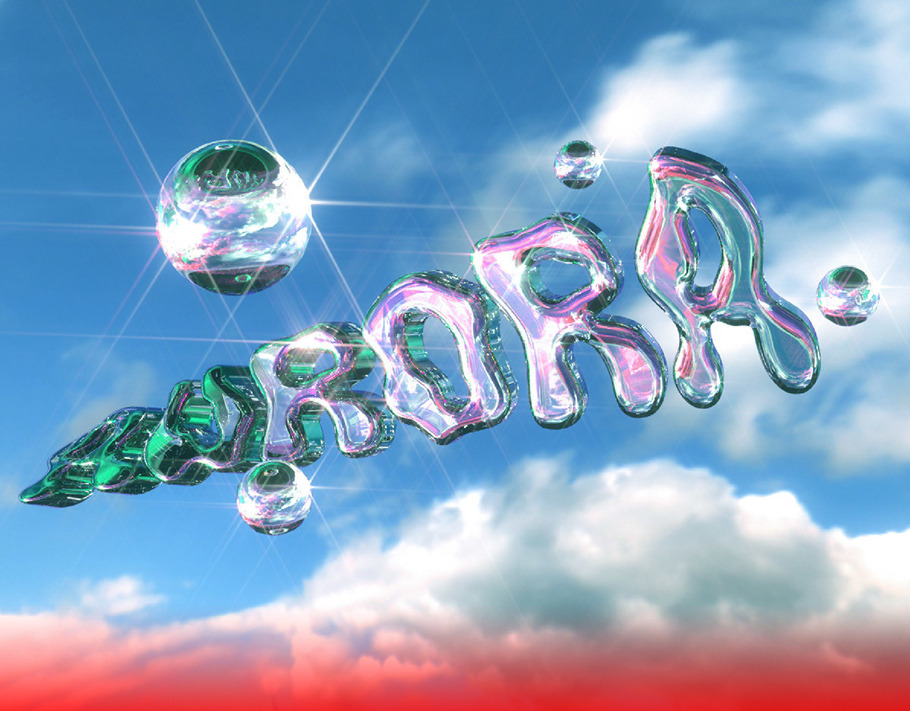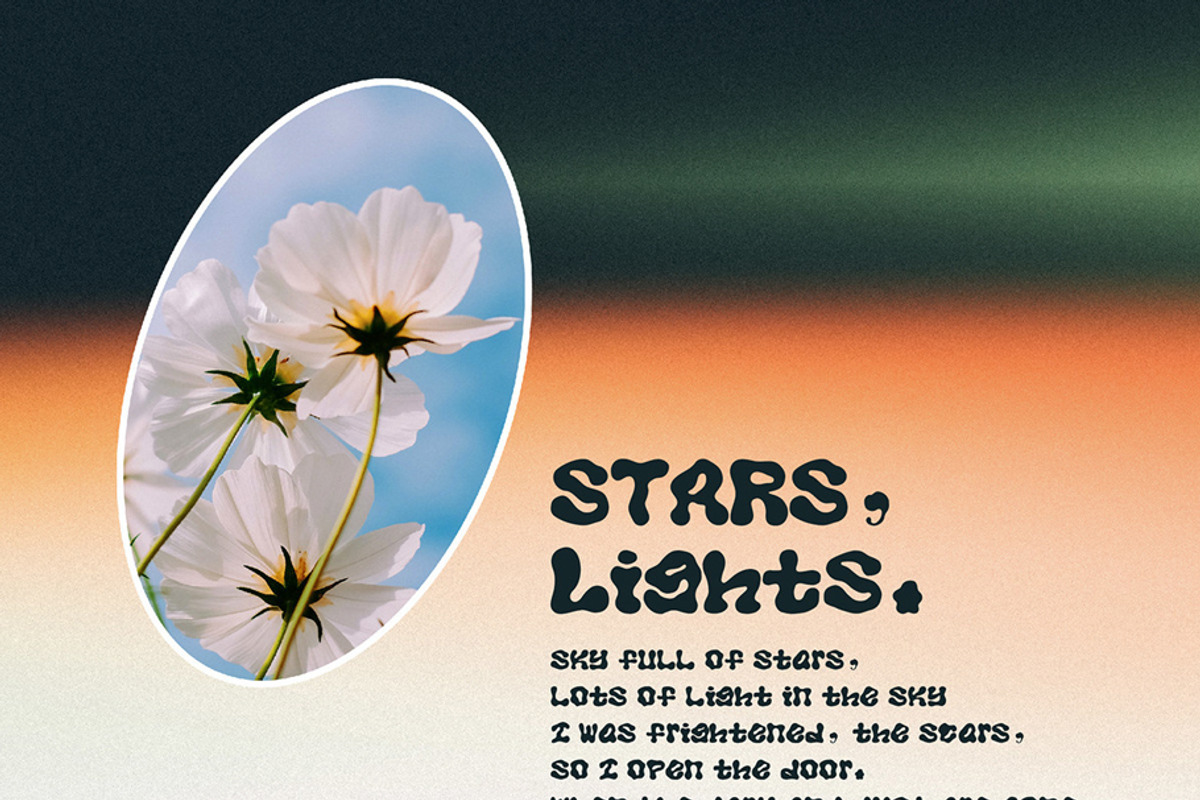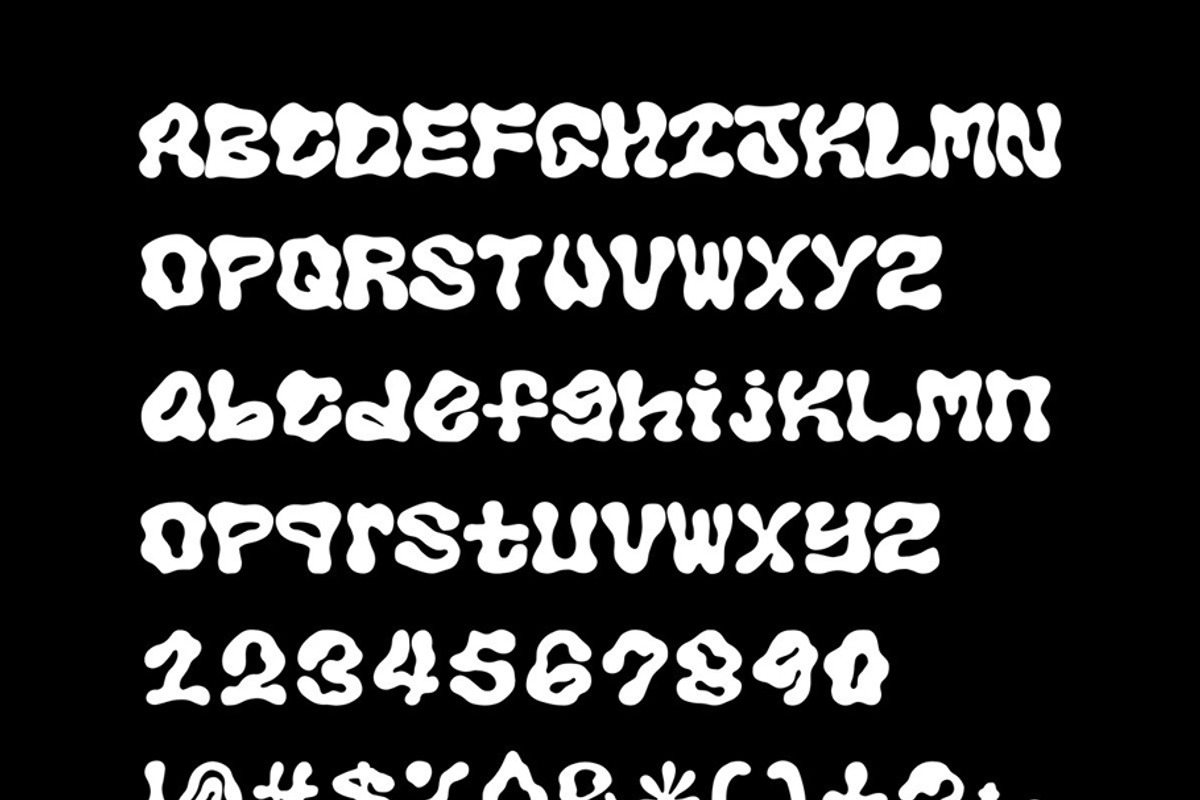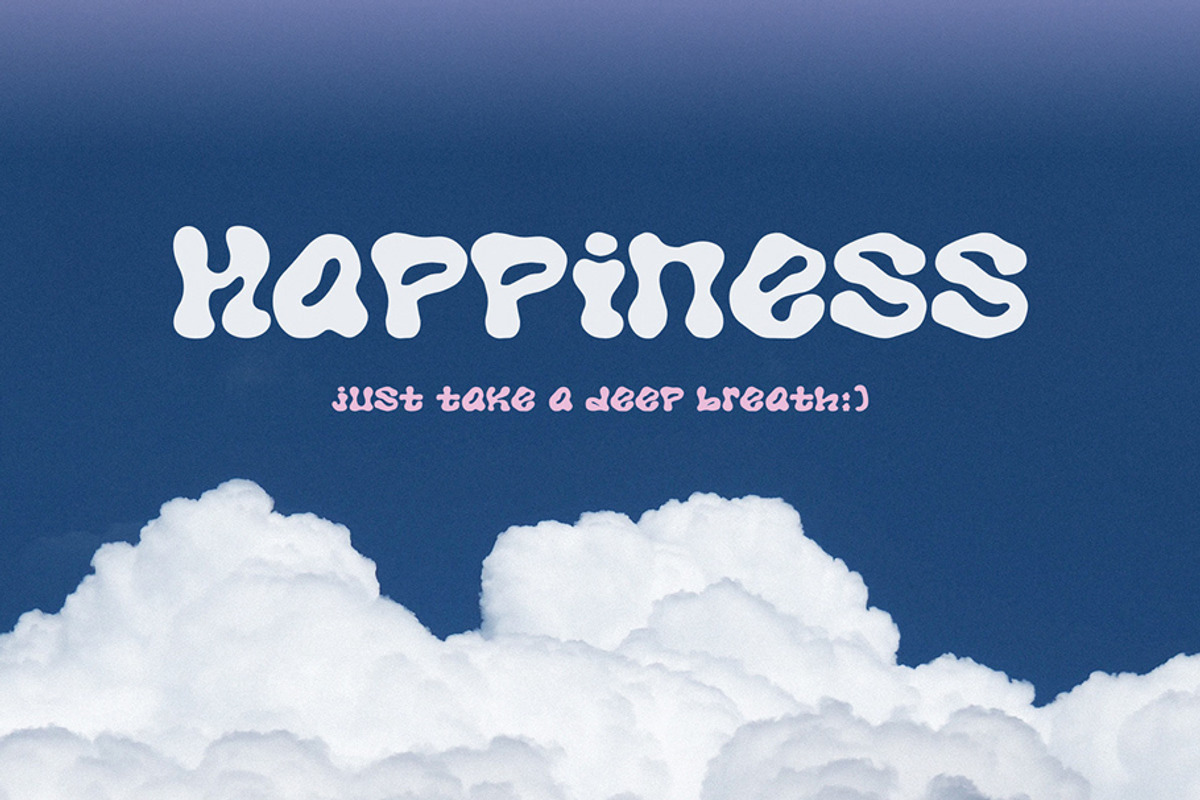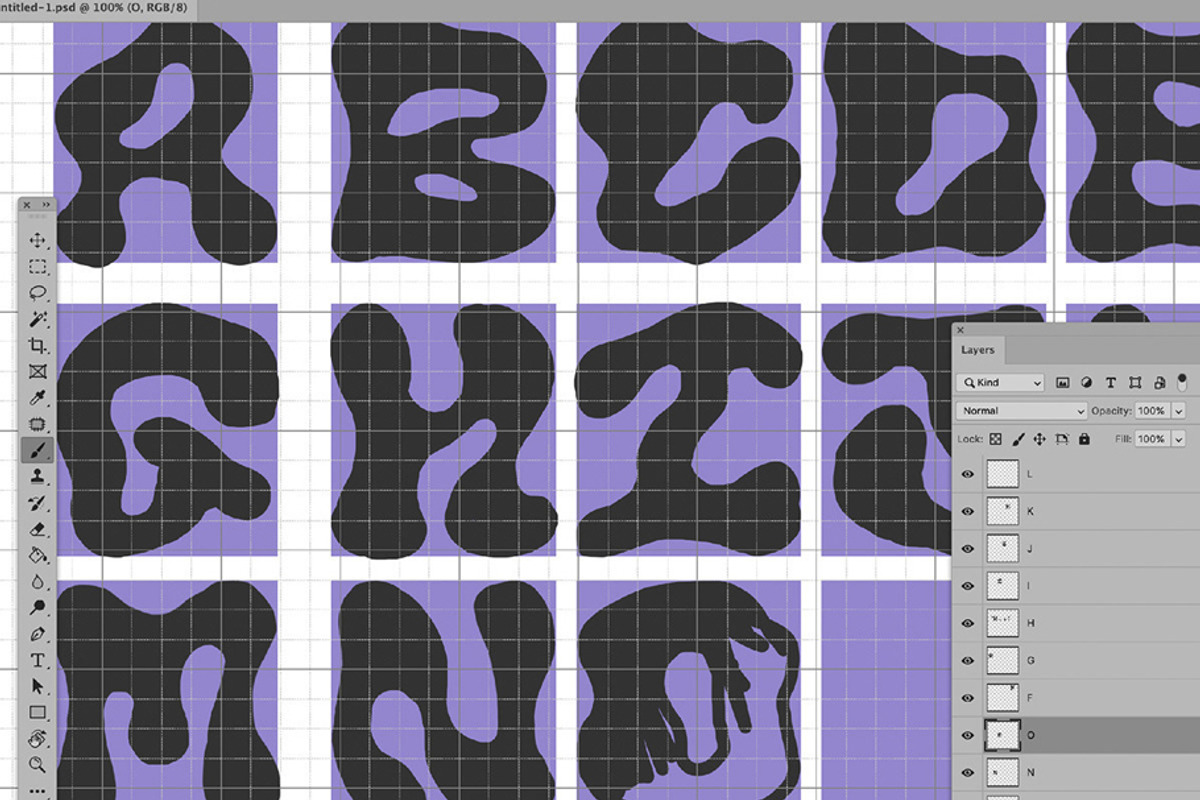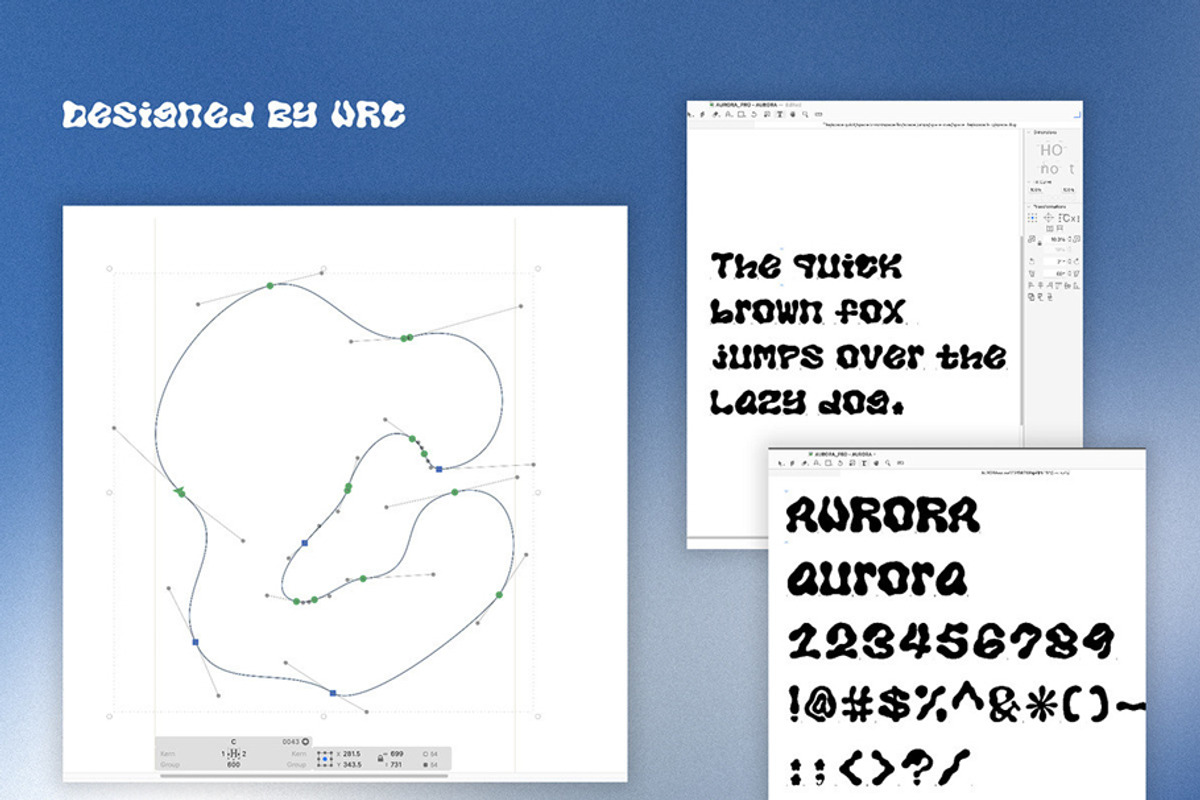
Font Aurora Lights
Aurora Lights was designed by Moon Young.
Aurora Lights was inspired by album [ AURORA - URC ].
It expresses the fluid shape of the aurora. Recomended to use it on album covers and posters.